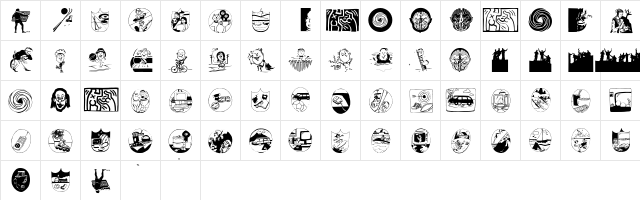
Sammelsuriart Regular Font Preview
Sammelsuriart Regular
Sammelsuriart Regular Font Details
Design Context for Sammelsuriart Typeface
Sammelsuriart is a composed and adaptable typeface that performs quietly and consistently across a wide range of design contexts.